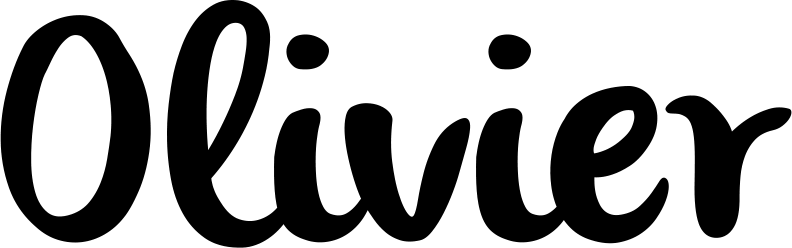
Olivier Font
Olivier is a brush font that delivers a natural, beautiful, feel with ink lettering, by utilizing it you will have the most interesting cursive style typography. Oliver font is engaging, modern, and attractive, plus it h…
Olivier is a brush font that delivers a natural, beautiful, feel with ink lettering, by utilizing it you will have the most interesting cursive style typography. Oliver font is engaging, modern, and attractive, plus it has a lively, friendly, and very sociable design.
You can create any typography you wish with the mixed alphabets, numbers, and punctuations provided. This font is excellent for many places like invitation cards, wedding cards, logos, texts, and wherever you wish for a realistic hand-drawn element.